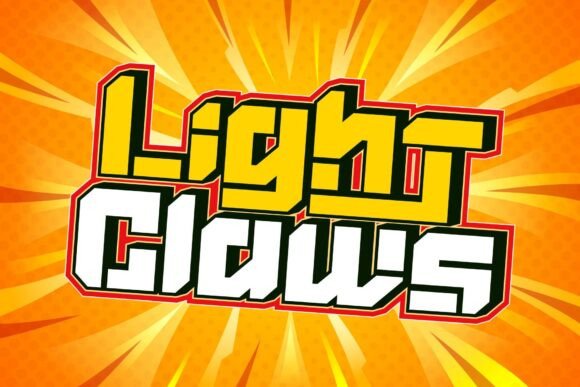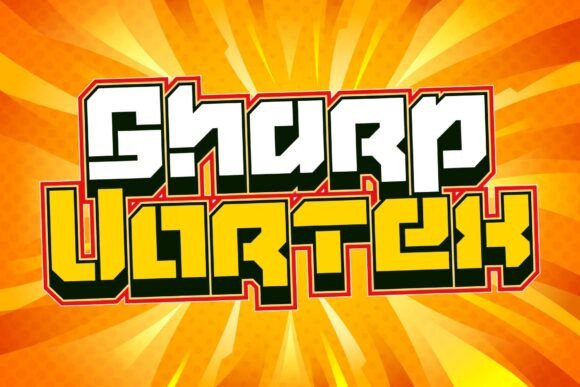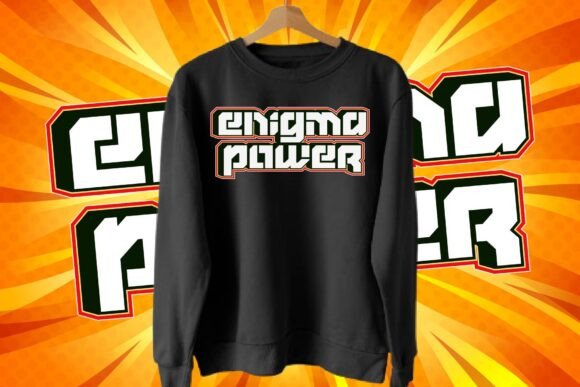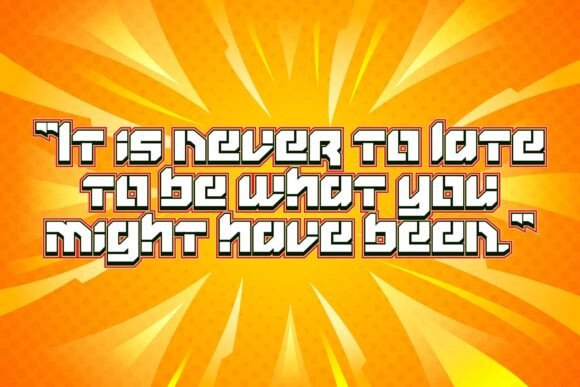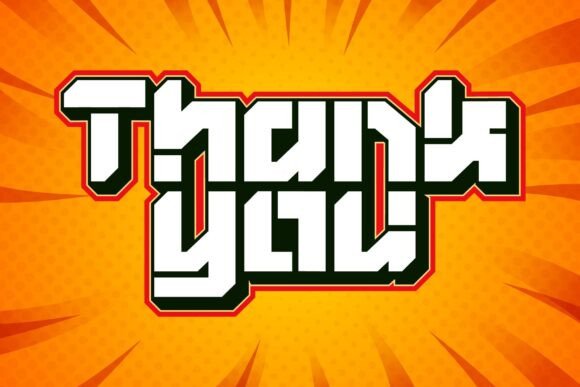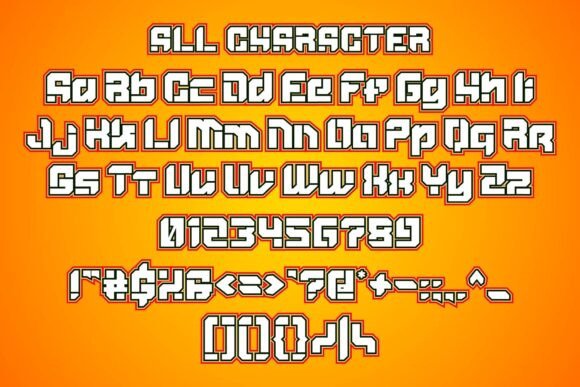
Introducing Anima Boost Font: The Ultimate Display Font for Creative Projects
Are you looking for a font that can add a touch of fun and personality to your designs? Look no further than Anima Boost Font! This thick lettered display font is perfect for delivering messages with confidence, authenticity, and charm. In this article, we’ll explore the features and benefits of Anima Boost Font, and how it can elevate your creative projects.
What is Anima Boost Font?
Anima Boost Font is a display font designed to make a statement. Its thick, bold letters are perfect for headlines, titles, and any other text that needs to grab attention. The font is highly legible, even at smaller sizes, making it versatile for use in a variety of projects.
Key Features of Anima Boost Font
- Fun and playful design: Anima Boost Font has a unique and quirky design that’s perfect for adding a touch of personality to your projects.
- Thick and bold letters: The font’s thick letters make it perfect for headlines, titles, and any other text that needs to stand out.
- Highly legible: Despite its bold design, Anima Boost Font is highly legible, even at smaller sizes.
- Versatile: The font can be used in a variety of projects, from cartoons and magazine covers to games and more.
Use Cases for Anima Boost Font
Anima Boost Font is perfect for a wide range of creative projects, including:
- Cartoons and animations: The font’s playful design makes it perfect for cartoons, animations, and other projects that require a fun and quirky touch.
- Magazine covers: Anima Boost Font is great for magazine covers, as it can help grab attention and draw readers in.
- Games: The font’s bold design makes it perfect for use in games, such as titles, headings, and other UI elements.
- Posters and flyers: Anima Boost Font is great for posters and flyers, as it can help grab attention and communicate a message quickly and effectively.
Benefits of Using Anima Boost Font
There are many benefits to using Anima Boost Font in your creative projects. Some of the most significant advantages include:
- Increased engagement: The font’s playful design can help increase engagement and draw readers in.
- Improved brand recognition: Anima Boost Font can help establish a brand’s personality and tone, making it easier to build recognition and loyalty.
- Versatility: The font can be used in a wide range of projects, making it a great addition to any designer’s toolkit.
Tips for Using Anima Boost Font
Here are a few tips for getting the most out of Anima Boost Font:
- Use it sparingly: Anima Boost Font is a bold font, so it’s best to use it sparingly to avoid overwhelming the reader.
- Pair it with other fonts: The font pairs well with other fonts, so don’t be afraid to experiment with different combinations.
- Experiment with colors: Anima Boost Font looks great in a variety of colors, so don’t be afraid to experiment and find the perfect hue for your project.
| Font Name | Anima Boost Font |
| Author | Kido Studio |
Anima Boost Font is a fun and versatile display font that’s perfect for adding a touch of personality to your creative projects. Its thick, bold letters make it perfect for headlines, titles, and any other text that needs to grab attention. With its highly legible design and wide range of use cases, Anima Boost Font is a great addition to any designer’s toolkit.